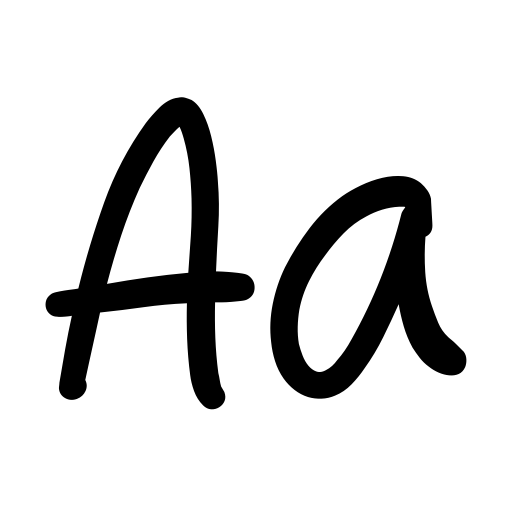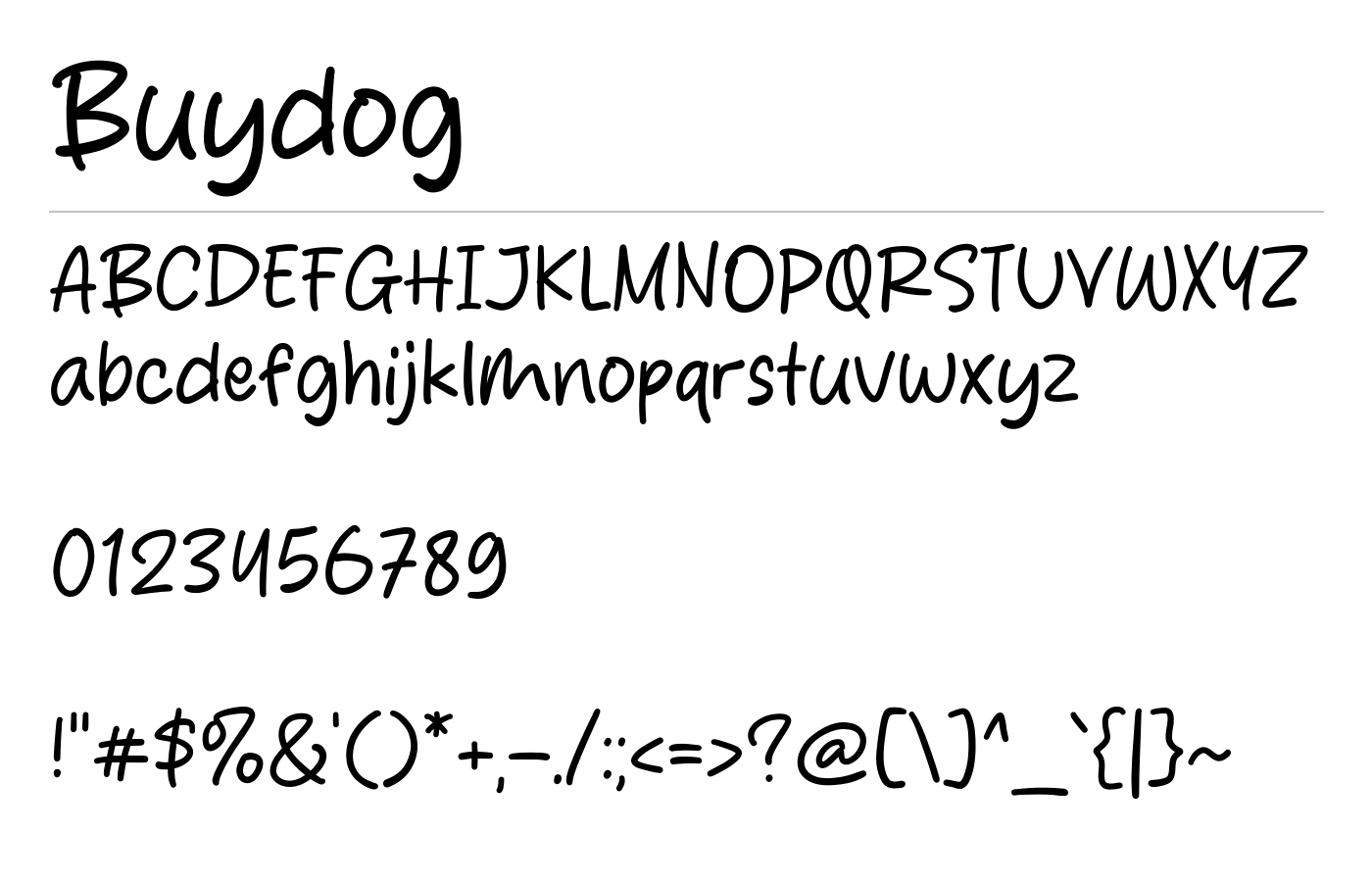
Buydog is a casual, handwritten-style sans serif font with a friendly and approachable character. Its medium weight and slightly tall x-height ensure good readability, while the smooth, playful letterforms create a warm, informal feel that works well for branding, social media, and creative projects. This font’s lively personality makes it ideal for designs that want to convey creativity, friendliness, and a personal touch.
Buydog Font
About Buydog Font
| Font family | Buydog Font |